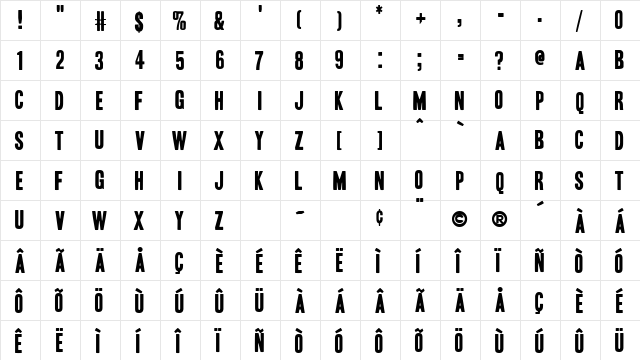
Toronto Gothic Regular
Design Context for Toronto Gothic Typeface
Toronto Gothic has the quiet confidence of well-executed sans-serif typography: versatile, unobtrusive, and dependable at any size.
Font Pairing: Works well alongside a characterful serif or display font that can carry the expressive load while Toronto Gothic handles the functional copy.
Pro Tip: Pair Toronto Gothic with a display or serif font for headlines — its neutral character makes it an excellent supporting player in complex typographic systems.